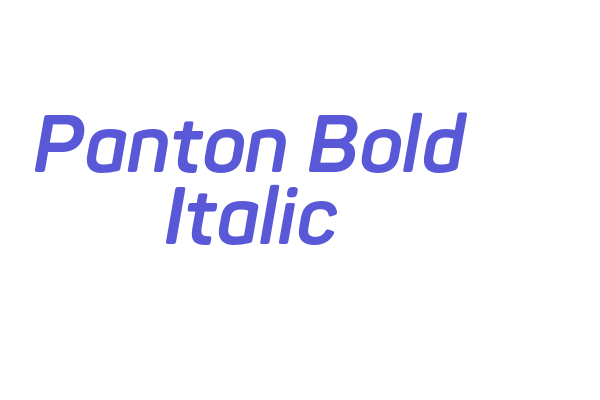
Panton Bold Italic is a sleek and modern typeface designed by Ivan Petrov. Part of the Panton font family, this bold italic style exudes confidence and sophistication. Ideal for adding a touch of elegance to headings, logos, and branding projects, this font is perfect for conveying a sense of strength and professionalism.
Font Name: Panton Bold Italic
Designer: Ivan Petrov
Font Family: Panton
Weight: Italic